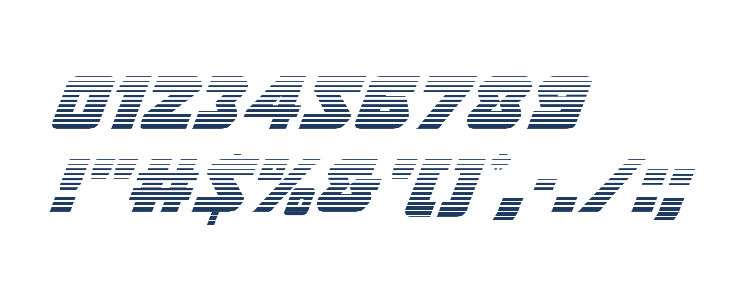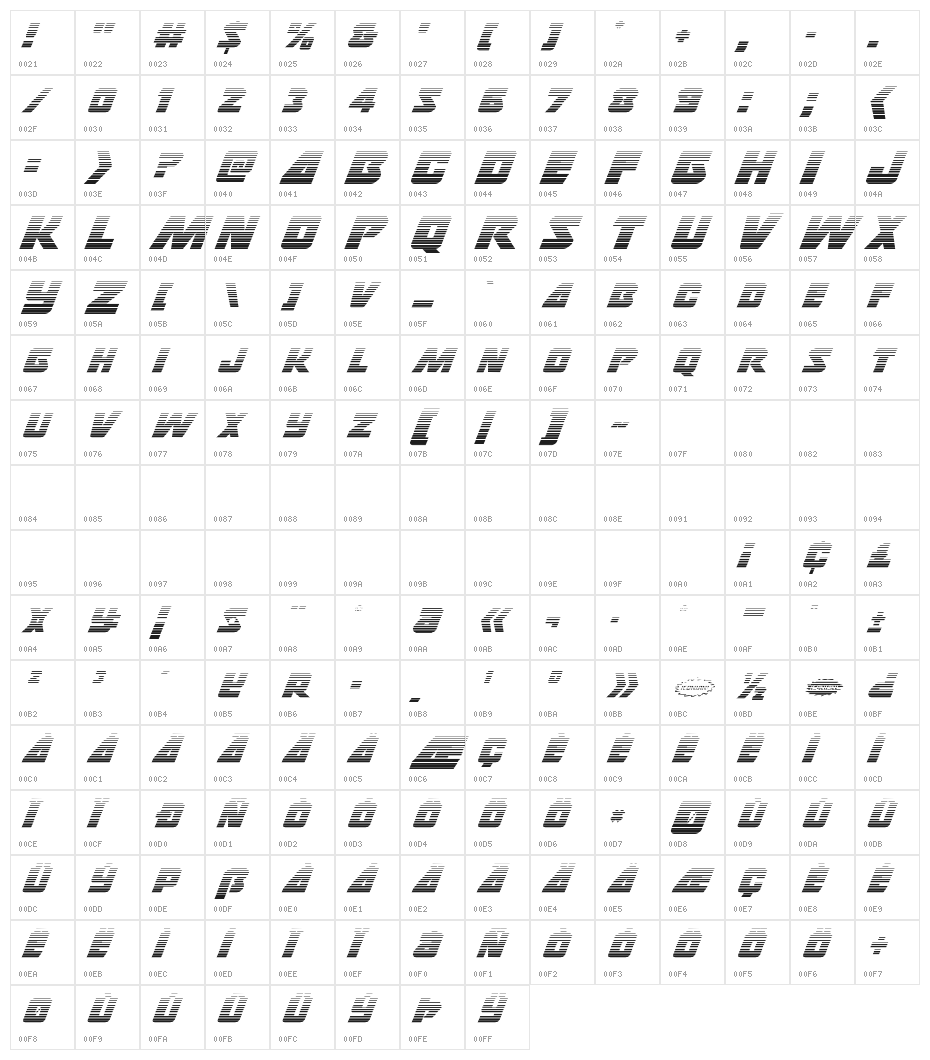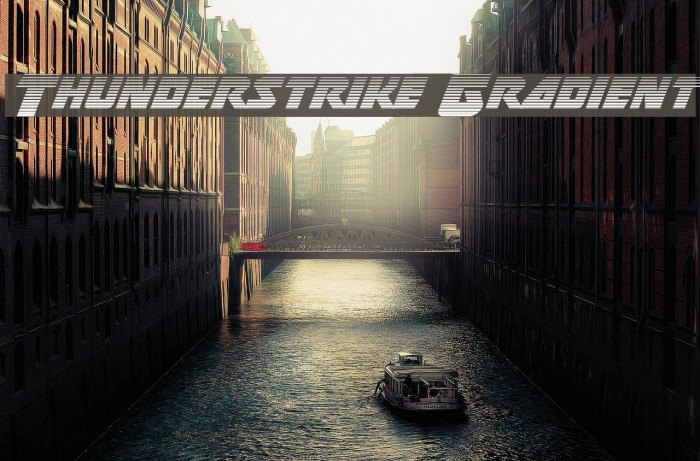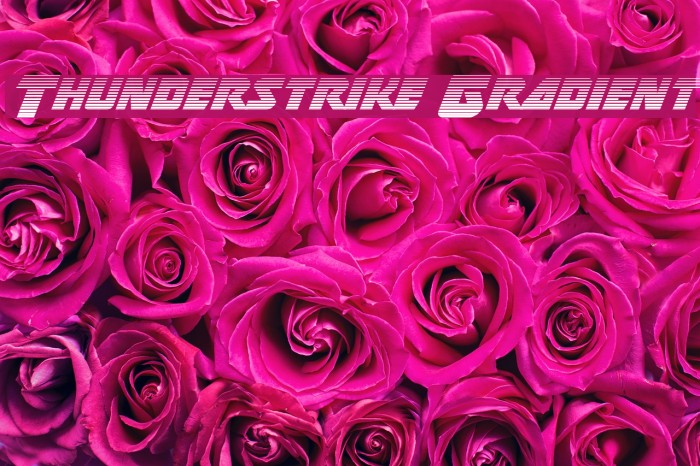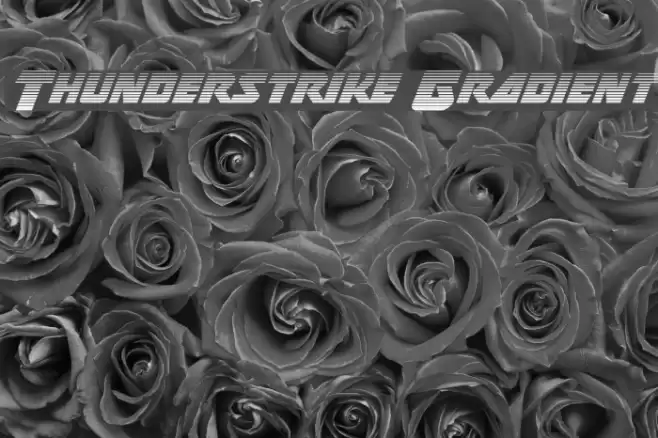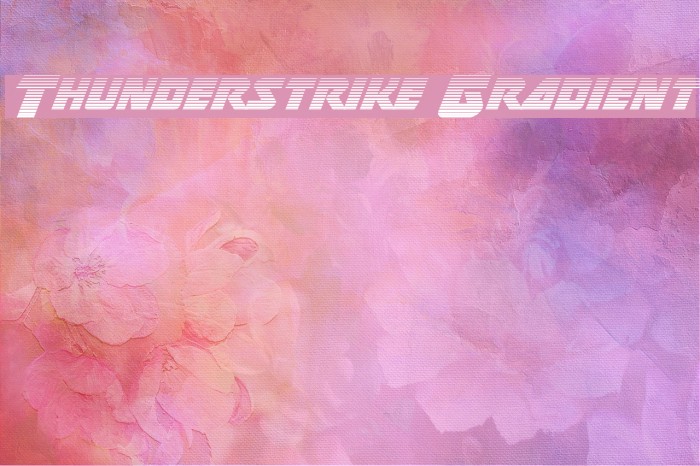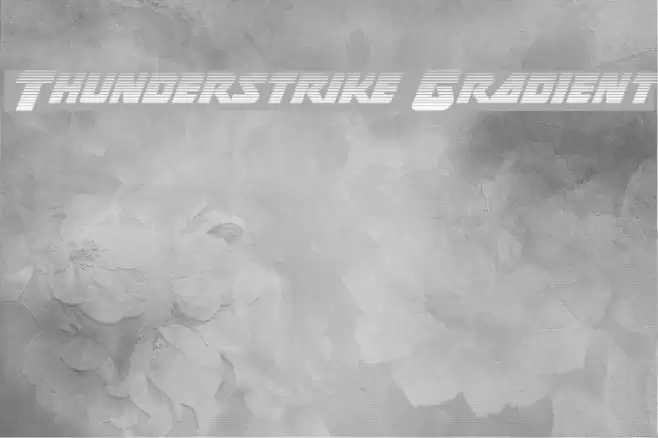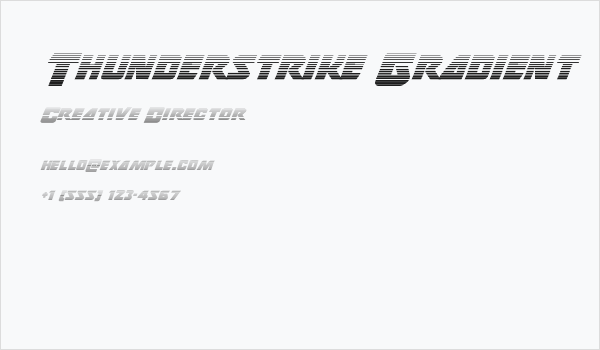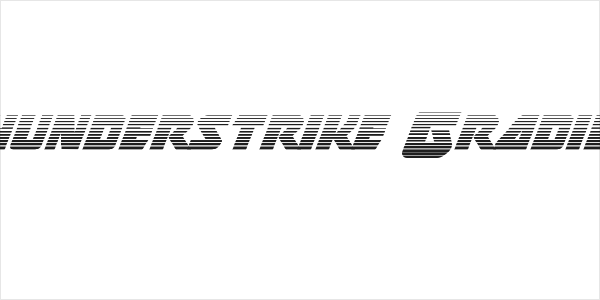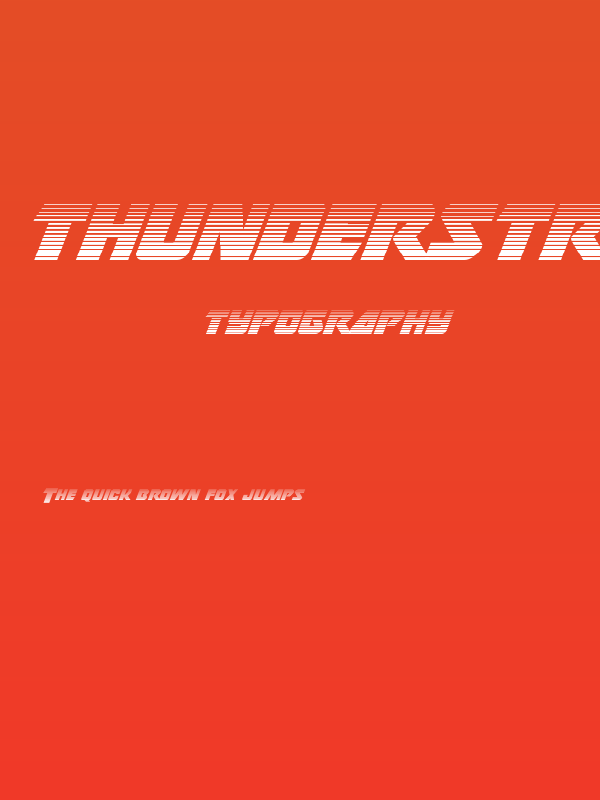
Thunderstrike Gradient Font
Thunderstrike Gradient Description
This font features a bold, dynamic design with a distinctive gradient effect created by horizontal lines running through each character. The uppercase letters are sharply angled, giving a sense of motion and energy. The characters are wide and have a futuristic, tech-inspired aesthetic, making them stand out prominently. The numbers and special characters maintain the same stylistic elements, ensuring consistency across all glyphs. This font is ideal for projects that require a modern and impactful visual presence.
| Proposed Projects | Perfect for sports branding, tech-related designs, video game titles, and dynamic posters. |